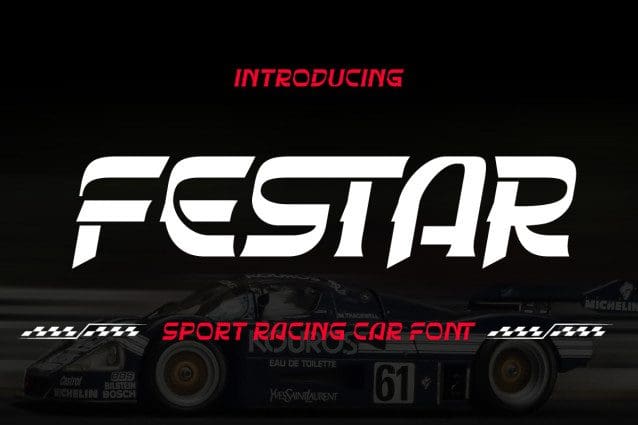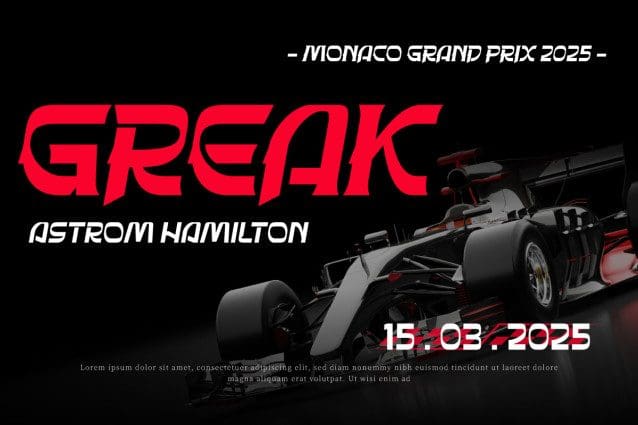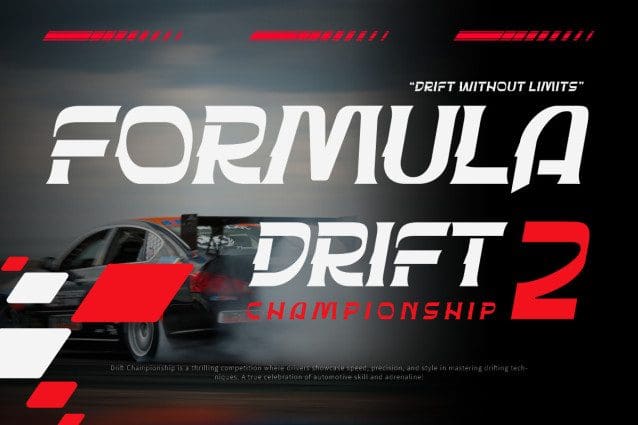
Festar Font
Festar Font is a dynamic and high-energy typeface inspired by the world of motorsports. With its bold and fast design, Festar is perfect for racing-themed branding, car stickers, event posters, and sports merchandise. This font captures the thrill and adrenaline of the racetrack, adding speed and excitement to your designs.